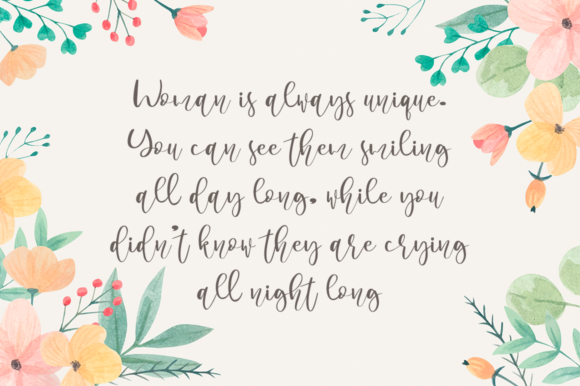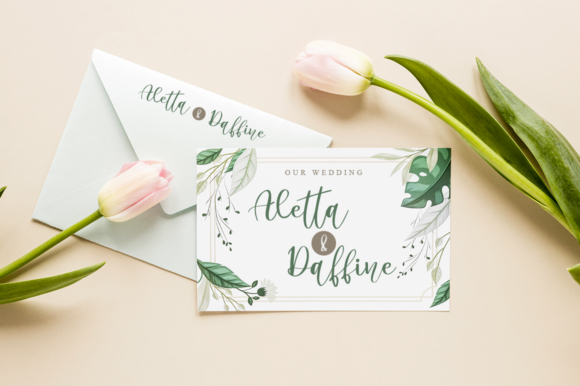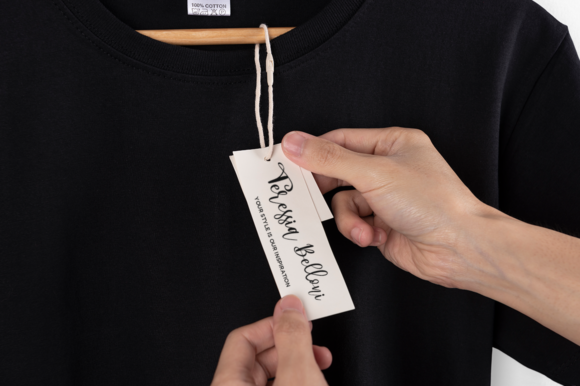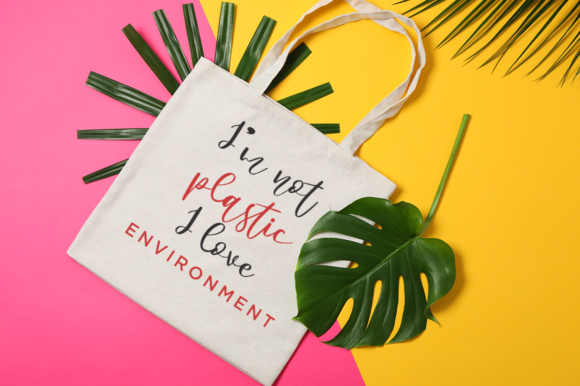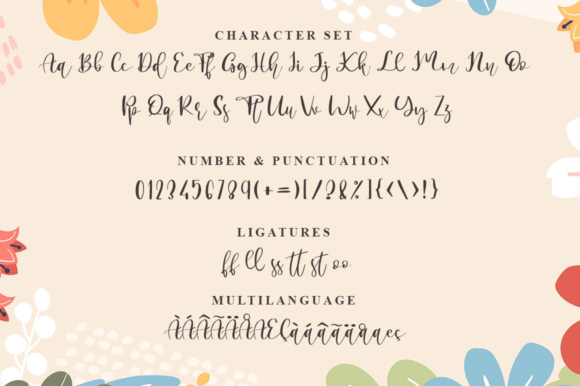
Introducing Christoria Font: Elevate Your Designs with Elegance and Class
Are you tired of using the same old fonts in your designs? Do you want to add a touch of elegance and sophistication to your projects? Look no further than Christoria Font, a lovely and delicate script font that is sure to refresh and revitalize your designs. In this article, we’ll take a closer look at Christoria Font, its features, and how you can use it to take your designs to the next level.
What is Christoria Font?
Christoria Font is a beautiful script font that is perfect for designers, crafters, and anyone looking to add a touch of elegance to their projects. This font was particularly crafted for those who need a beautiful and refreshing look to their designs. With its delicate and refined strokes, Christoria Font exudes elegance and class, making it perfect for a wide range of design applications.
Key Features of Christoria Font
So, what makes Christoria Font so special? Here are some of its key features:
- Delicate and Refined Strokes: Christoria Font features delicate and refined strokes that give it a elegant and sophisticated look.
- Script Style: Christoria Font is a script font that is perfect for adding a touch of elegance and flair to your designs.
- Easy to Read: Despite its delicate nature, Christoria Font is easy to read, making it perfect for use in a wide range of design applications.
- Versatile: Christoria Font is a versatile font that can be used in a wide range of design applications, from wedding invitations to branding and packaging.
How to Use Christoria Font in Your Designs
Now that we’ve covered the features of Christoria Font, let’s take a look at how you can use it in your designs. Here are some ideas to get you started:
- Wedding Invitations: Christoria Font is perfect for wedding invitations, adding a touch of elegance and sophistication to your designs.
- Branding and Packaging: Use Christoria Font to add a touch of elegance and refinement to your branding and packaging designs.
- Signage: Christoria Font is perfect for signage, adding a touch of elegance and sophistication to your signs.
- Digital Designs: Christoria Font can also be used in digital designs, such as social media graphics, blog headers, and more.
Tips for Getting the Most Out of Christoria Font
Here are some tips for getting the most out of Christoria Font:
- Use it Sparingly: Christoria Font is a delicate font, so use it sparingly to avoid overwhelming your designs.
- Pair it with Other Fonts: Christoria Font pairs well with other fonts, so experiment with different combinations to find the perfect look for your designs.
- Adjust the Size and Color: Experiment with different sizes and colors to find the perfect look for your designs.
| Font Name | Christoria Font |
| Author | Gatra Std |
In conclusion, Christoria Font is a beautiful and elegant script font that is perfect for designers, crafters, and anyone looking to add a touch of elegance to their projects. With its delicate and refined strokes, Christoria Font exudes elegance and class, making it perfect for a wide range of design applications. Whether you’re designing wedding invitations, branding and packaging, or digital designs, Christoria Font is sure to elevate your designs and take them to the next level.